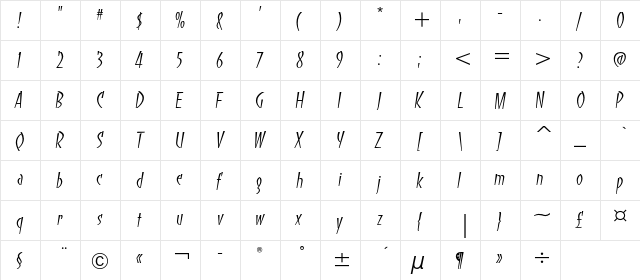
BancoLightC Regular
Design Context for BancoLightC Typeface
BancoLightC is a composed and adaptable typeface that performs quietly and consistently across a wide range of design contexts. Its slender proportions lend an understated elegance to any composition.